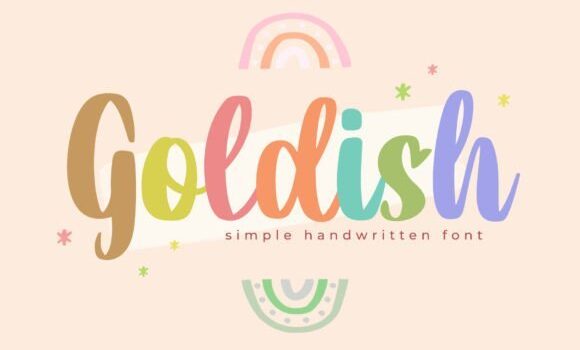
goldish
Goldish Font – Free Download Introduction to Goldish Font Goldish is a cute, playful, and fun script font. 📸 Preview Gallery 6 images 📌 Product Name Goldish Font 👤 Author airotype 📂 Category Explore ⬇️ Download Goldish Font FREE Free